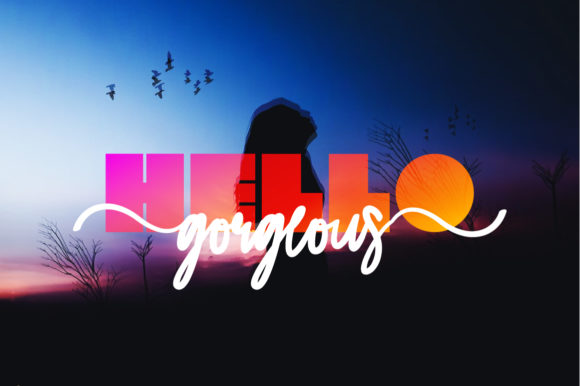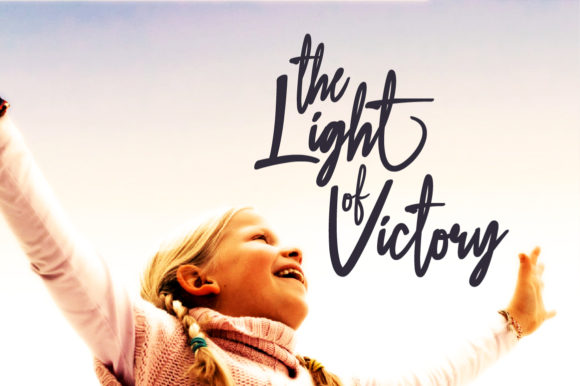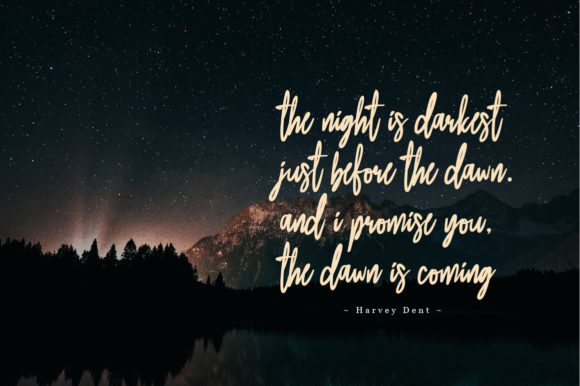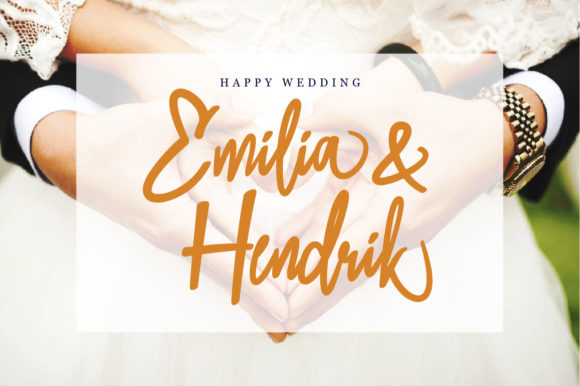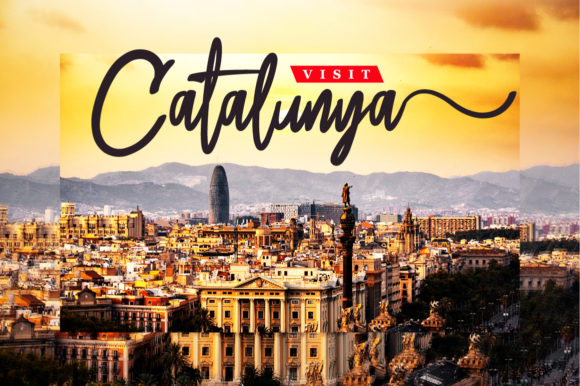
Sweatty Font
About Sweatty Font
The Sweatty is an amazing handwritten typeface. It has a natural writing style and a great readability.
It’s perfect for adding a striking touch to your logos, branding, posters, wallpapers, wedding stationary, invitations, quotes, and much more!